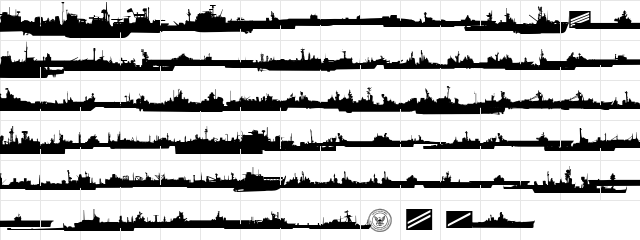
US Navy Regular Font Preview
US Navy Regular
US Navy Regular Font Details
Design Context for US Navy Typeface
US Navy is a composed and adaptable typeface that performs quietly and consistently across a wide range of design contexts.
Pro Tip: Pair US Navy with a font of contrasting weight or personality to build a more expressive typographic hierarchy.